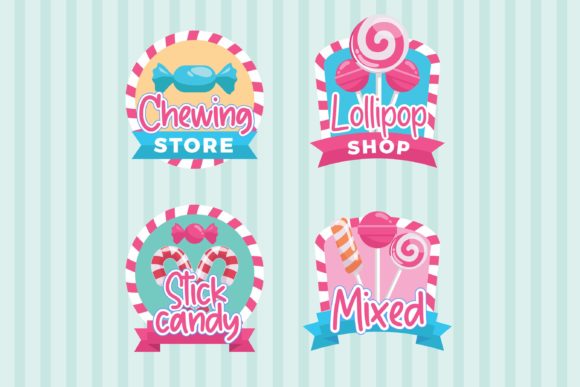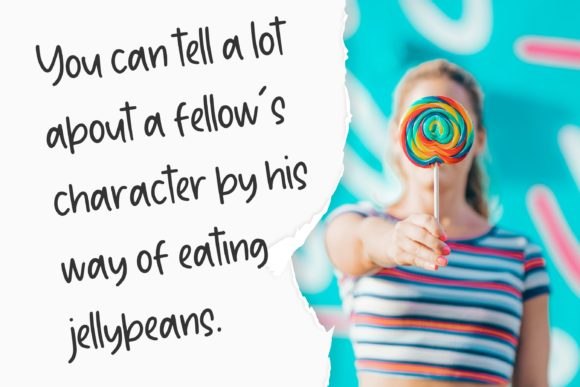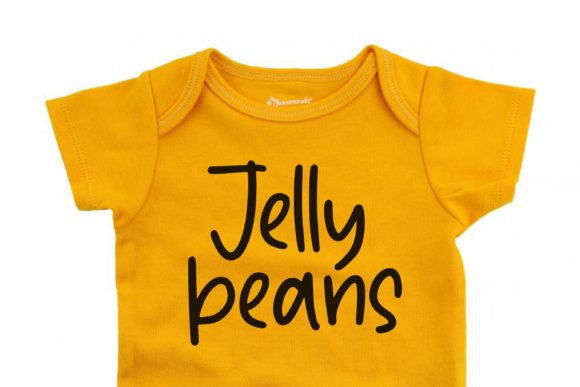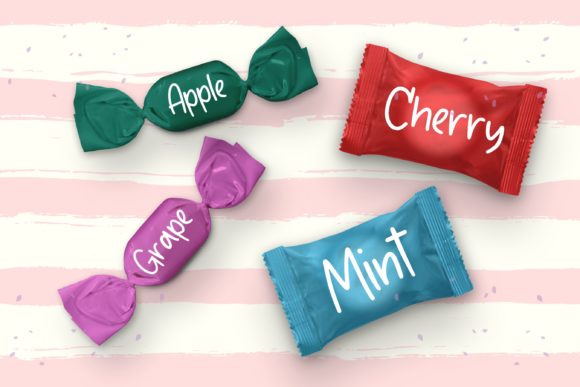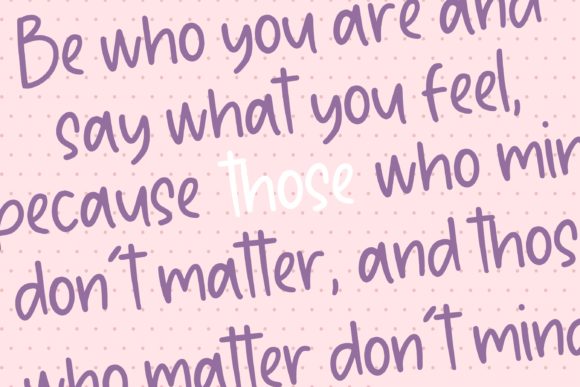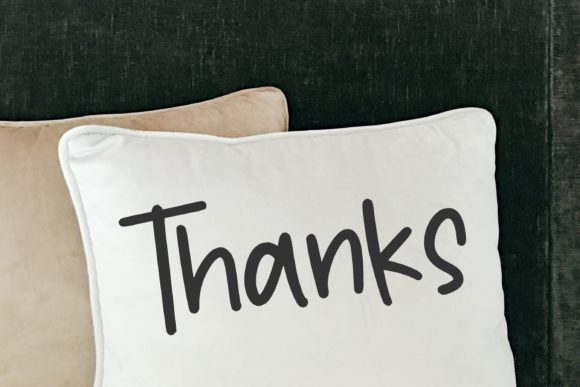
Candycane Font: The Sweetest Addition to Your Design Arsenal
Are you on the hunt for a font that exudes warmth, friendliness, and a dash of playfulness? Look no further than Candycane, a delightful handwritten font that’s sure to capture the hearts of designers, crafters, and DIY enthusiasts alike. With its incredibly friendly feel, Candycane is the perfect choice for turning your creative ideas into stunning works of art.
The Charm of Candycane
Candycane is a cute and casual handwritten font that’s designed to make your designs feel approachable, inviting, and utterly charming. Its unique blend of elegance and playfulness makes it an excellent choice for a wide range of projects, from social media graphics and Instagram posts to calligraphy scripts and DIY crafts.
What Makes Candycane Special?
- Friendliness: Candycane’s warm and welcoming feel makes it perfect for designs that require a personal touch.
- Versatility: Whether you’re creating social media graphics, calligraphy scripts, or DIY projects, Candycane adapts effortlessly to any design style.
- Ease of use: This font is incredibly easy to read and write, making it perfect for designers and crafters of all skill levels.
- Uniqueness: Candycane’s distinctive charm sets it apart from more traditional fonts, ensuring your designs will stand out from the crowd.
Perfect for Instagram and Social Media
In today’s digital age, having a strong visual presence on social media is crucial. Candycane font helps you create eye-catching Instagram posts, stories, and graphics that are sure to engage your audience. Its friendly and approachable feel makes it perfect for:
- Instagram quotes and captions
- Social media graphics and banners
- Blog posts and articles
- Email newsletters and marketing materials
Unleash Your Creativity with Candycane
Candycane is more than just a font – it’s a creative tool that can help you bring your ideas to life. Whether you’re a designer, crafter, or DIY enthusiast, this font offers endless possibilities for:
- Calligraphy scripts and hand-lettering
- DIY projects and crafts
- Stationery and card making
- Sign making and event planning
Tips for Using Candycane Effectively
To get the most out of Candycane, here are a few tips to keep in mind:
- Mix and match: Combine Candycane with other fonts to create visually appealing contrast and hierarchy.
- Experiment with colors: Candycane looks great in a variety of colors, so don’t be afraid to try out different hues and combinations.
- Play with textures: Add depth and interest to your designs by incorporating textures and patterns.
Candycane font is a game-changer for designers, crafters, and DIY enthusiasts looking to add a touch of warmth and friendliness to their creations. With its versatility, ease of use, and unique charm, Candycane is sure to become a staple in your design arsenal. So why wait? Download Candycane today and start turning your creative ideas into stunning works of art!